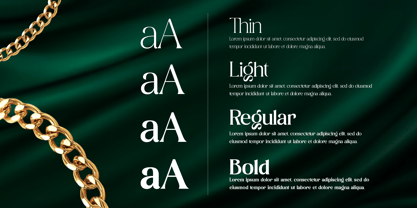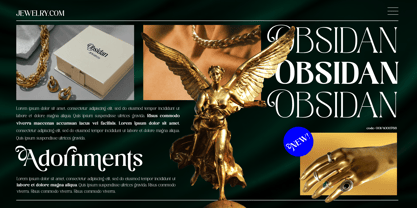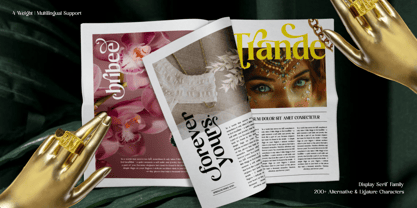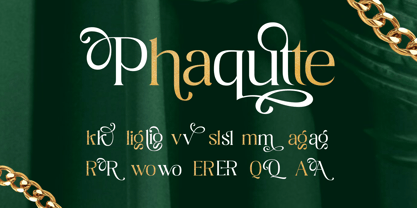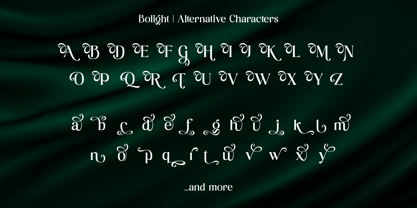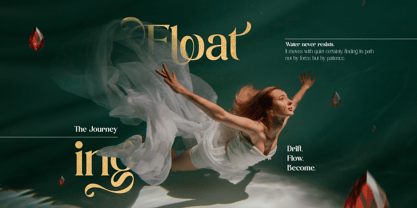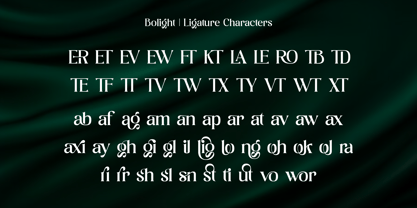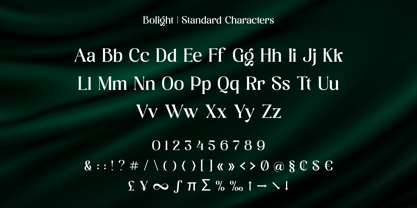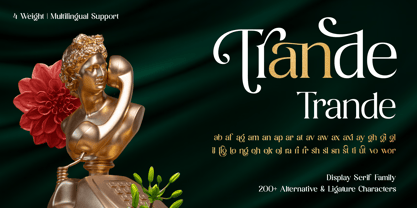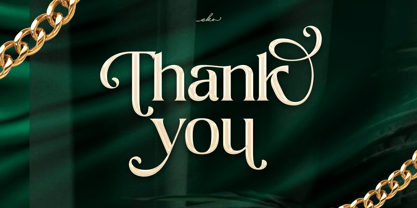
Bolight
by Ekahermawan
The Bolight Font Family was designed by Putu Eka Hermawan and published by Ekahermawan. Bolight contains 4 styles and family package options. More about this family
Introducing Bolight – A Versatile Serif Display Font Family
Bolight is a modern serif display font family that comes in four carefully crafted weights, from Thin to bold. Designed with versatility in mind, Bolight is packed with a wide range of alternates and stylish ligatures, giving you endless creative possibilities. Whether you're designing eye-catching posters, sophisticated logos, magazine headlines, websites, or elegant invitations, Bolight adapts beautifully to your vision. The variety of weights makes it easy to create strong typographic contrast between headings and subheadings, adding both professionalism and visual interest to your work. Thoughtfully designed with passion and precision, Bolight brings timeless style and functionality to any project. Perfect for creatives who want a font that’s both expressive and refined.
Designers: Putu Eka Hermawan
Foundry: Ekahermawan